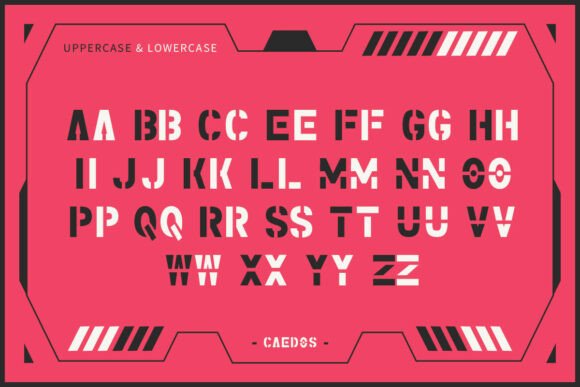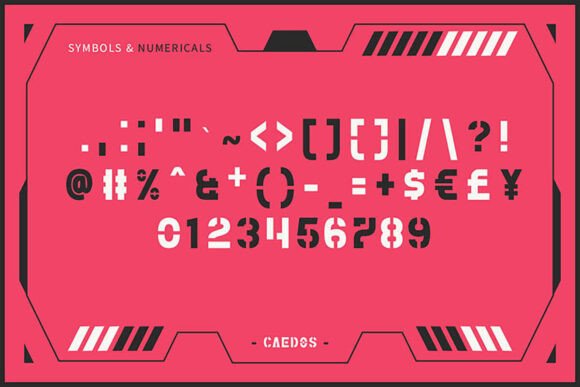
Introducing Caedos Font: A Futuristic Stencil Font for the Modern Designer
In the world of typography, fonts play a crucial role in conveying the tone and aesthetic of a brand or design. For designers and crafters looking to add a touch of modern sophistication and futuristic elegance to their work, Caedos Font is an excellent choice. This all-uppercase sans serif stencil display font is engineered to bring a high-tech, modular aesthetic to your designs, making it perfect for sci-fi branding, video games, user interfaces, and cinematic titles.
Design and Features of Caedos Font
Caedos Font is designed with sharp precision and tech-inspired geometry, giving it a unique and cutting-edge look. Its futuristic stencil design features cut-out elements that provide a bold presence, making it ideal for posters, military themes, robotics, and cyber environments. The font’s sleek and confident appearance is engineered for innovation, ensuring that your designs stand out from the crowd.
Key Characteristics of Caedos Font
• All-uppercase sans serif stencil display font: Caedos Font is designed to make a statement with its bold, all-uppercase letters and sleek sans serif design.
• Modern sophistication and futuristic elegance: The font’s futuristic stencil design and tech-inspired geometry give it a modern and sophisticated look.
• High-tech, modular aesthetic: Caedos Font is perfect for designs that require a high-tech, modular look, such as sci-fi branding and video games.
• Cut-out elements and bold presence: The font’s cut-out elements and bold presence make it ideal for posters, military themes, and robotics.
Use Cases for Caedos Font
Caedos Font is a versatile font that can be used in a variety of design projects, including:
• Sci-fi branding: The font’s futuristic design makes it perfect for sci-fi branding, adding a touch of modern sophistication and elegance to your designs.
• Video games: Caedos Font is ideal for video games, providing a high-tech, modular aesthetic that will make your game stand out.
• User interfaces: The font’s clean and sleek design makes it perfect for user interfaces, ensuring a modern and sophisticated look.
• Cinematic titles: Caedos Font is perfect for cinematic titles, adding a touch of futuristic elegance and sophistication to your designs.
• Posters and prints: The font’s bold presence and cut-out elements make it ideal for posters and prints, adding a strong identity to your designs.
• Military themes and robotics: Caedos Font’s futuristic design makes it perfect for military themes and robotics, providing a strong and confident look.
Why Choose Caedos Font?
Caedos Font is an excellent choice for designers and crafters looking to add a touch of modern sophistication and futuristic elegance to their designs. Here are just a few reasons why:
• Unique and cutting-edge design: Caedos Font’s futuristic stencil design and tech-inspired geometry make it a unique and cutting-edge font.
• Versatile and adaptable: The font’s clean and sleek design makes it perfect for a variety of design projects, from sci-fi branding to user interfaces.
• High-quality and precise: Caedos Font is designed with sharp precision, ensuring a high-quality and precise look.
In conclusion, Caedos Font is a futuristic stencil font that is perfect for designers and crafters looking to add a touch of modern sophistication and futuristic elegance to their designs. With its unique and cutting-edge design, versatile and adaptable nature, and high-quality and precise appearance, Caedos Font is an excellent choice for a variety of design projects. Whether you’re working on sci-fi branding, video games, user interfaces, or cinematic titles, Caedos Font is sure to bring a high-tech, modular aesthetic to your designs.